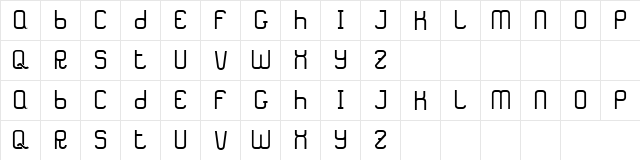
TF_Karma Regular
Design Context for TF_Karma Typeface
TF_Karma offers clean, dependable letterforms without strong stylistic allegiance, making it a practical choice for designers who need flexibility.